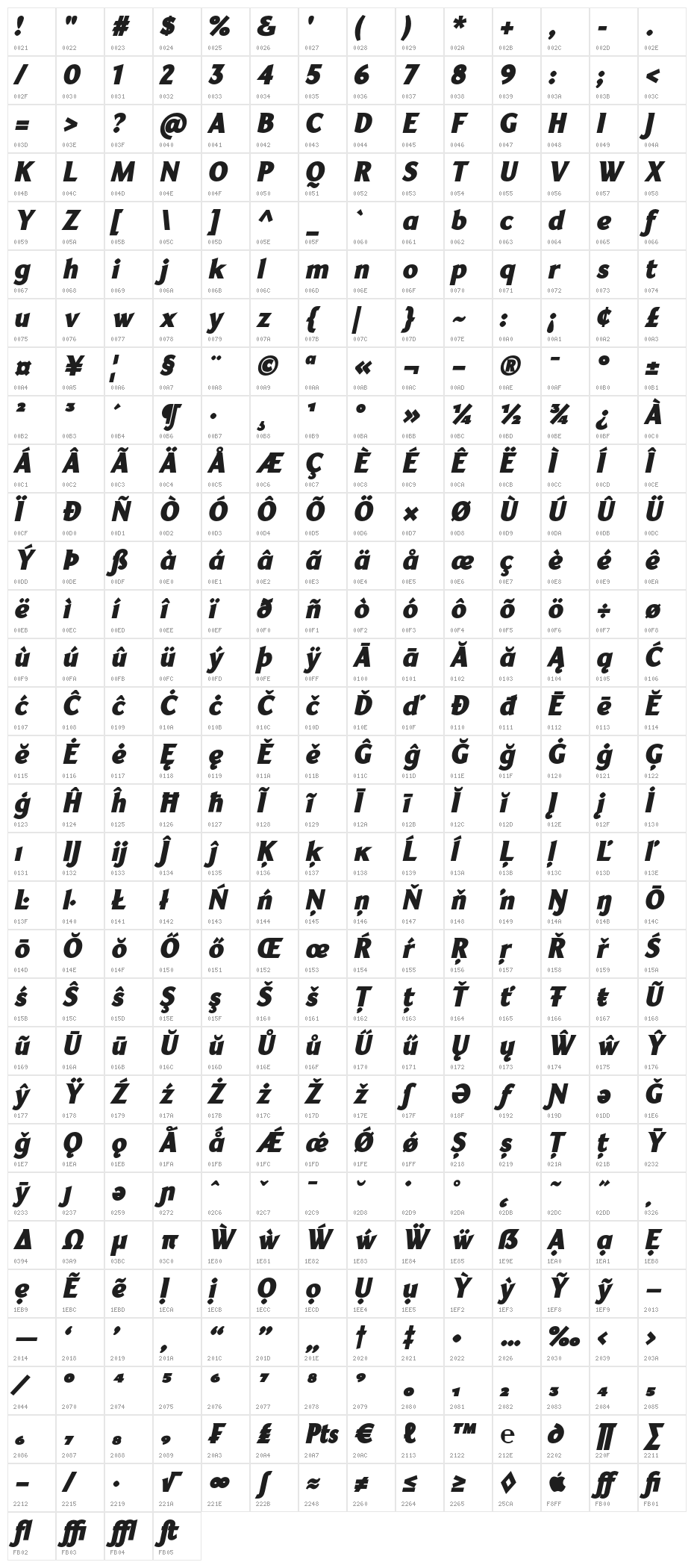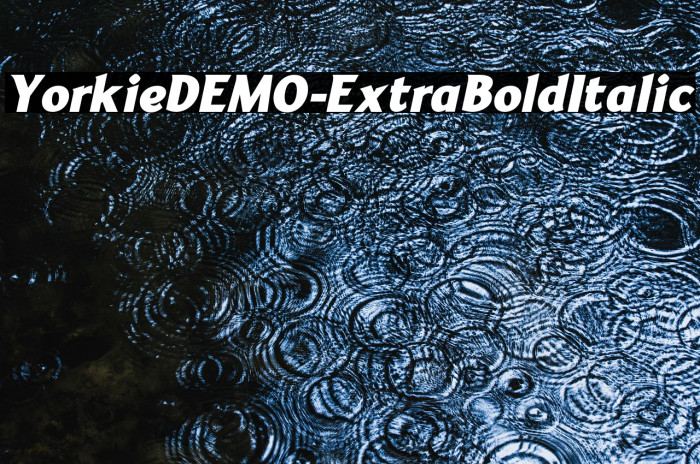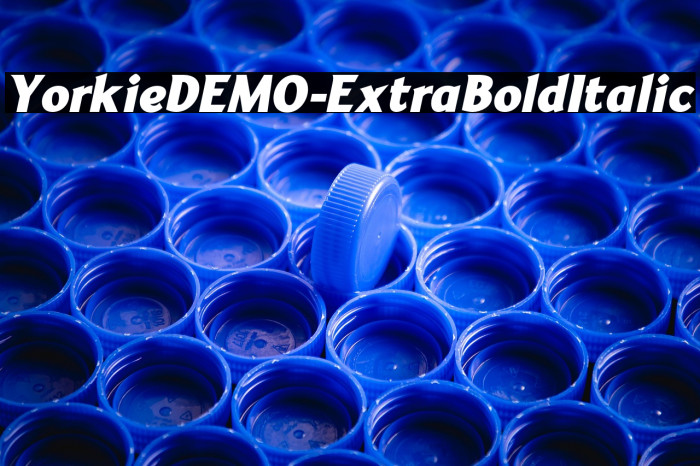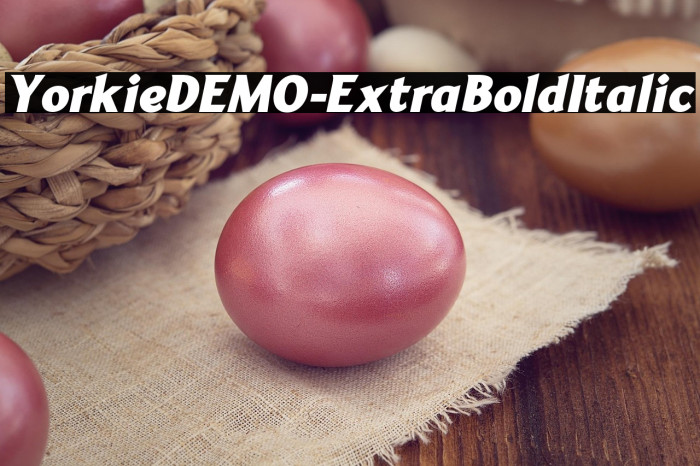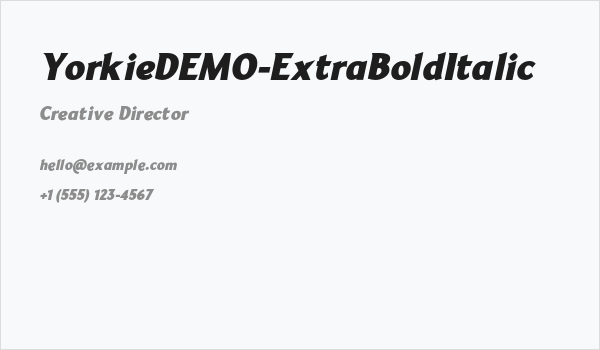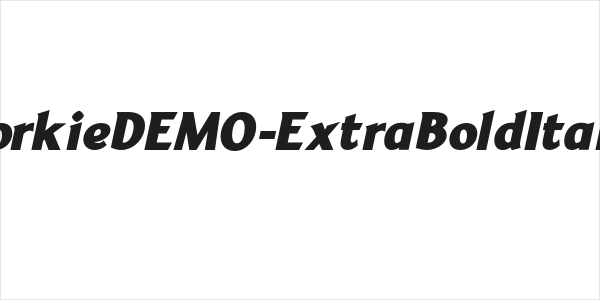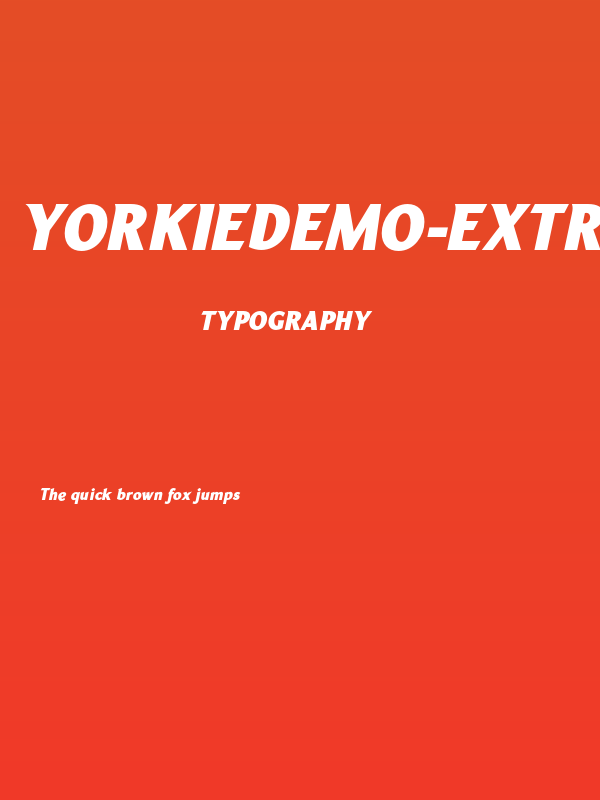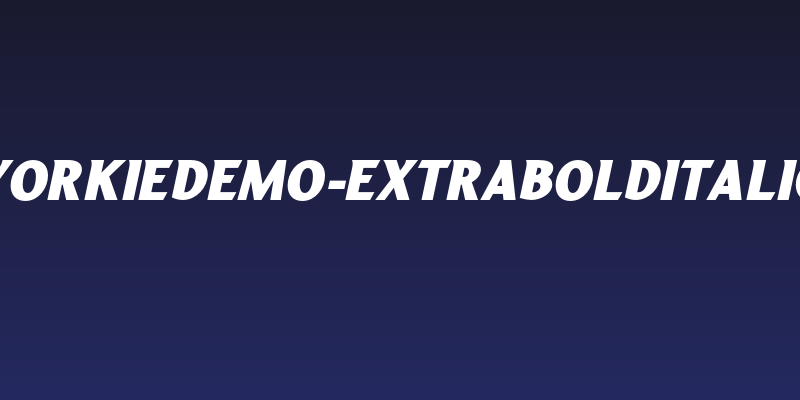
YorkieDEMO-ExtraBoldItalic Font
YorkieDEMO-ExtraBoldItalic Description
This font features a bold and italicized style, characterized by its strong, dynamic presence. The uppercase letters are robust and slightly slanted, giving a sense of movement and urgency. The lowercase letters maintain a consistent style, complementing the uppercase with a similar slant and weight. Numbers are equally bold, ensuring visibility and impact. Special characters are designed with the same boldness, ensuring uniformity across all glyphs. The overall design is modern and assertive, making it suitable for attention-grabbing headlines or branding that requires a strong visual impact.
Use CaseHeadlines, Logos, Branding
Proposed ProjectsIdeal for branding, advertising, and headlines where a strong, impactful presence is needed.